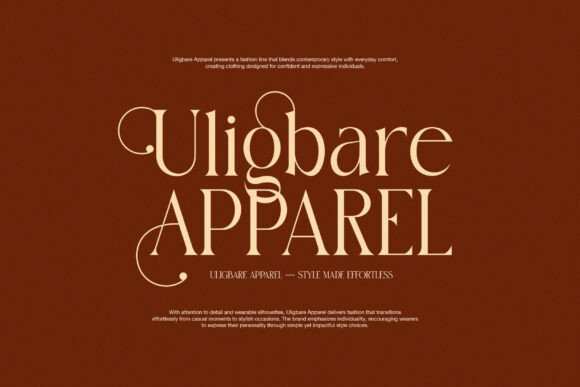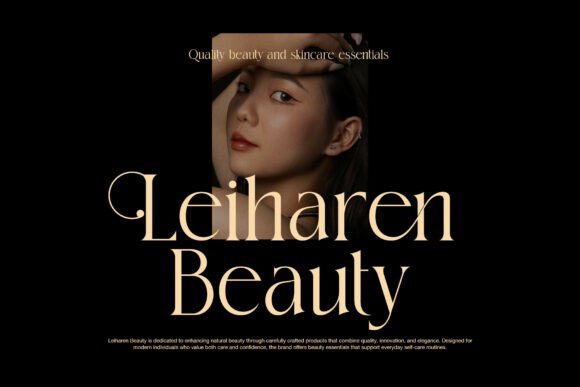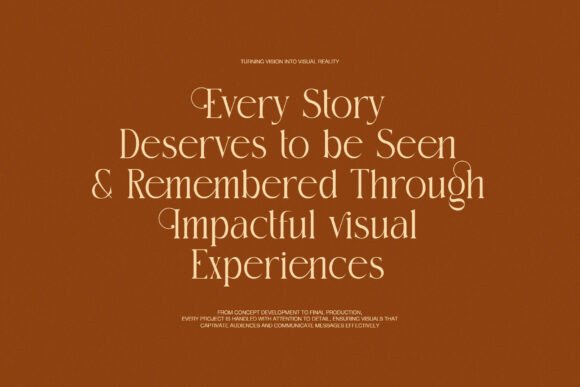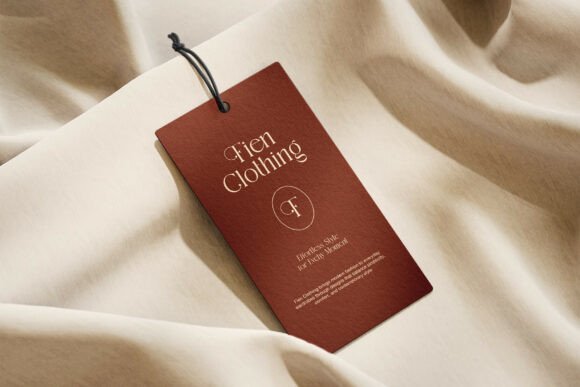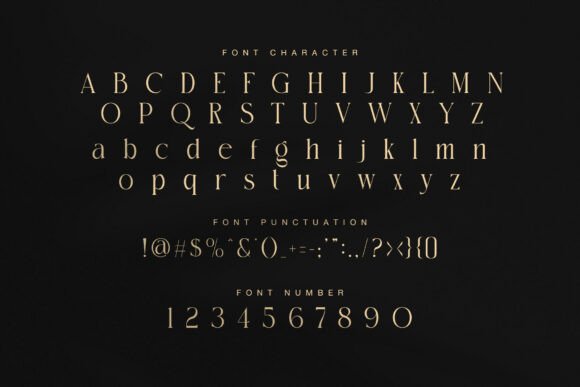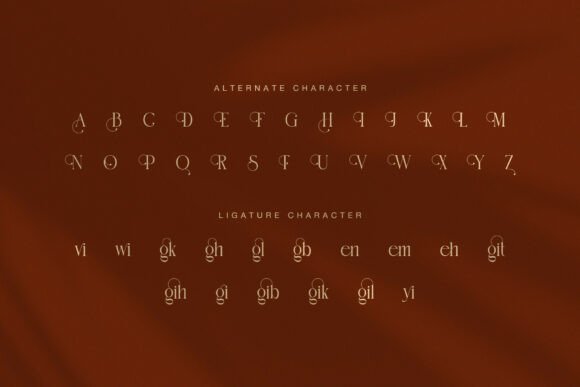
Exude Timeless Grace with Bugilen: The Ultimate High-Fashion Serif Font
In the world of typography, few fonts manage to convey the essence of luxury and sophistication as effortlessly as Bugilen. This high-fashion serif font is meticulously designed to infuse your designs with a touch of poetic elegance, making it the perfect choice for those who aim to leave a lasting impression. Whether you’re crafting high-impact logos, hero graphics, editorial headers, or any other design element that demands attention, Bugilen stands out as a definitive choice.
The Epitome of Luxury Branding
Bugilen is more than just a font; it’s an experience. It brings to the table a level of sophistication and artisanal charm that is hard to find in today’s fast-paced digital age. For luxury branding, where establishing a memorable identity is paramount, Bugilen offers a unique solution. Its elegant serifs and meticulously crafted letterforms exude a sense of timeless grace, making it an ideal fit for high-end brands looking to make a statement.
Elevate Your Editorial Designs
Editorial magazine headers, high-end cosmetic packaging, and cinematic title designs require a font that not only captures attention but also conveys a story of elegance and refinement. Bugilen, with its classic yet contemporary appeal, does just that. It adds a layer of depth and sophistication to any editorial piece, making it stand out in a crowded marketplace. Whether it’s the cover of a fashion magazine or the title sequence of a luxury brand film, Bugilen ensures your design communicates luxury and exclusivity.
Perfect for Boutique Fashion and Wedding Designs
For designers catering to the niche markets of boutique fashion houses or upscale wedding invitations, Bugilen offers a level of customization and elegance that’s hard to match. Its unique character and the ability to evoke a sense of artisanal craftsmanship make it the go-to font for those special projects where detail and distinction are key. With Bugilen, you can create designs that are not only visually stunning but also deeply evocative, capturing the essence of your client’s vision.
Key Features of Bugilen
- High-fashion serif design: Elegant and sophisticated, perfect for luxury branding and editorial designs.
- Poetic elegance: Adds a touch of artisanal charm to your typography, making it unforgettable.
- Versatile: Ideal for high-impact logos, hero graphics, editorial headers, and more.
- Timeless appeal: Combines classic elegance with a contemporary edge, ensuring your designs never go out of style.
Why Choose Bugilen?
In a sea of fonts, Bugilen stands out for its unique blend of sophistication, elegance, and versatility. Here are a few reasons why designers and crafters are gravitating towards Bugilen:
- Unique aesthetic: Offers a distinctive look that can elevate your designs and set them apart.
- High-quality design: Crafted with attention to detail, ensuring clarity and impact across various applications.
- Ease of use: Despite its sophisticated appearance, Bugilen is designed to be user-friendly, making it accessible for a wide range of projects.
Bugilen is not just a font; it’s a statement of luxury, elegance, and sophistication. Whether you’re a designer looking to elevate your brand’s visual identity or a crafter aiming to add a touch of poetic elegance to your projects, Bugilen is the perfect choice. Its timeless appeal, versatile nature, and high-fashion serif design make it an indispensable tool in your typography arsenal. With Bugilen, you’re not just choosing a font; you’re embracing a design philosophy that values beauty, craftsmanship, and the art of making a lasting impression.
So, why settle for ordinary when you can exude timeless grace with Bugilen? Make the leap to luxury typography and discover how this high-fashion serif font can transform your designs into unforgettable works of art.